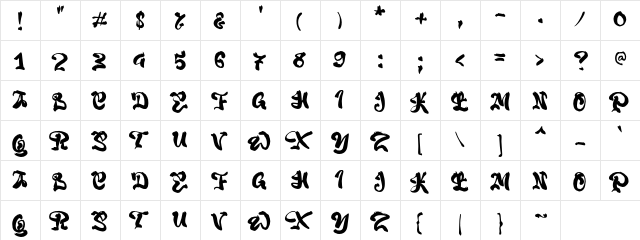
a Ai Love Regular Font Preview
a Ai Love Regular
a Ai Love Regular Font Details
| Designer | Wahyu Eka Prasetya |
Design Context for a Ai Love Typeface
a Ai Love is a composed and adaptable typeface that performs quietly and consistently across a wide range of design contexts.